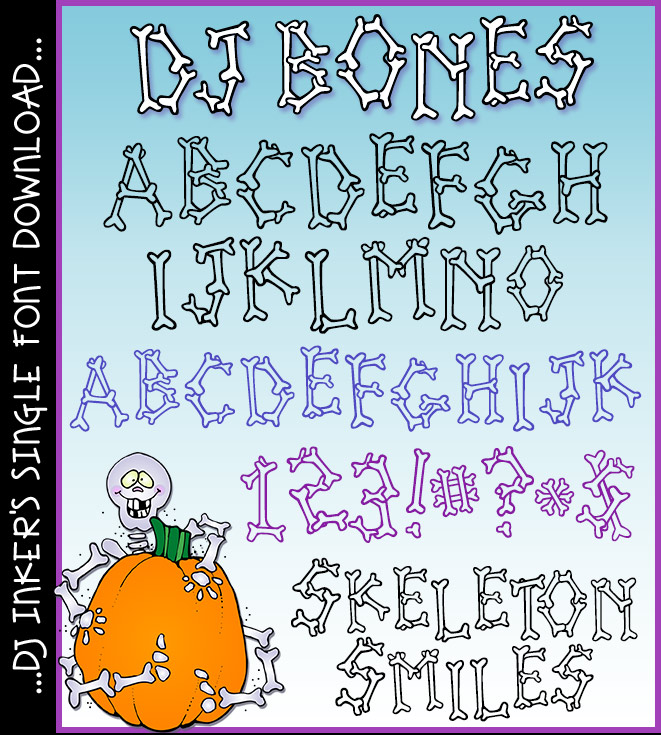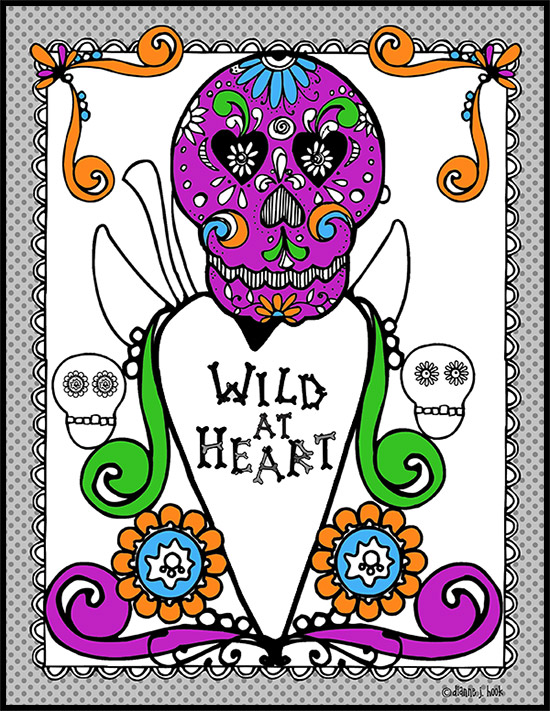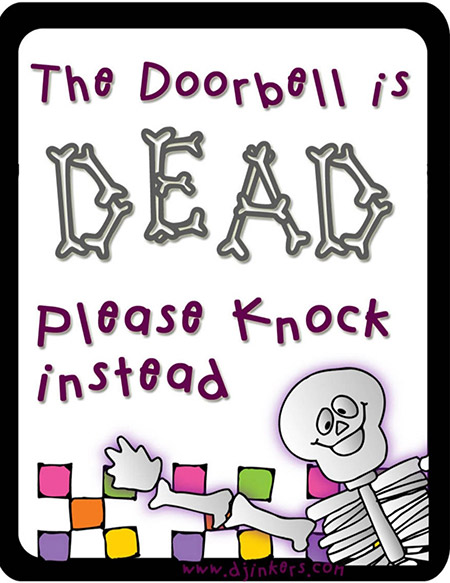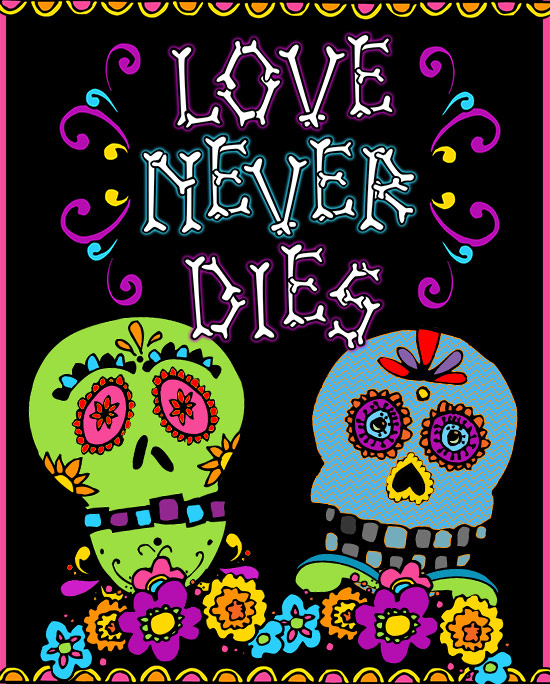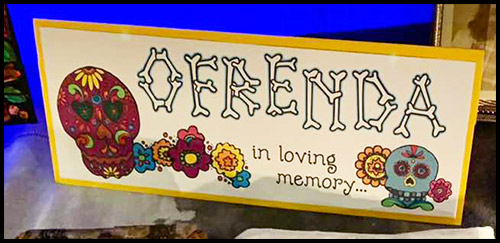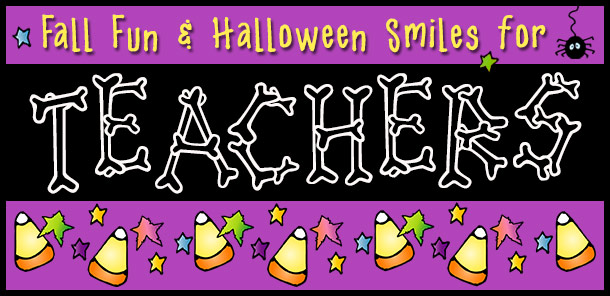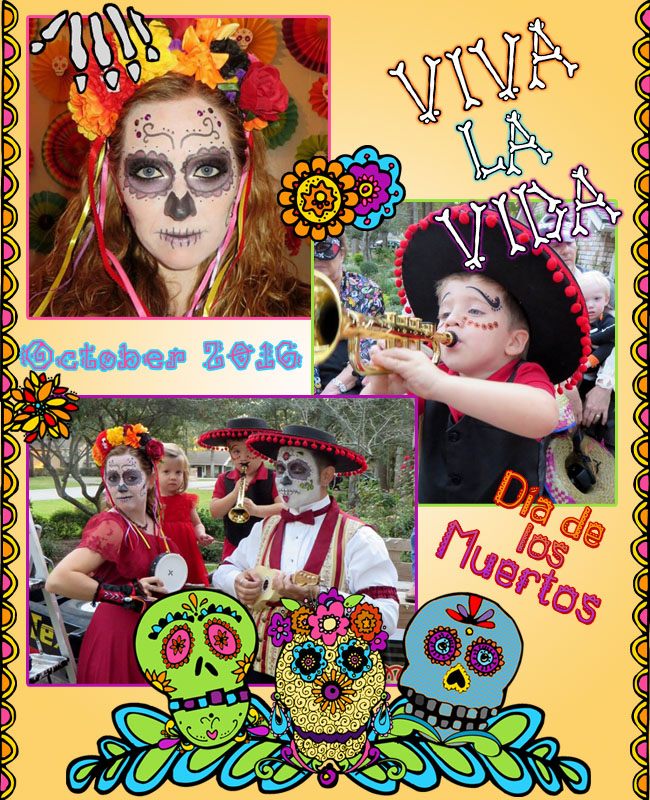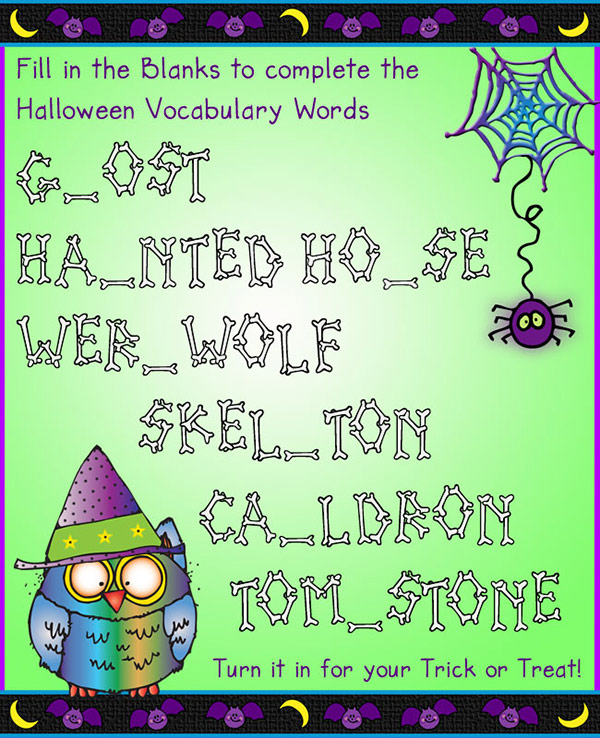
Fun bone lettering font for Halloween by DJ Inkers
DJ Bones Font for Halloween
No bones about it, you'll love this font for creating Halloween smiles! We used our funny bones to carefully construct this whimsical skeleton lettering just for you. DJ Bones will be fun to type with for tricks & treats, the Day of the Dead, science class and more!